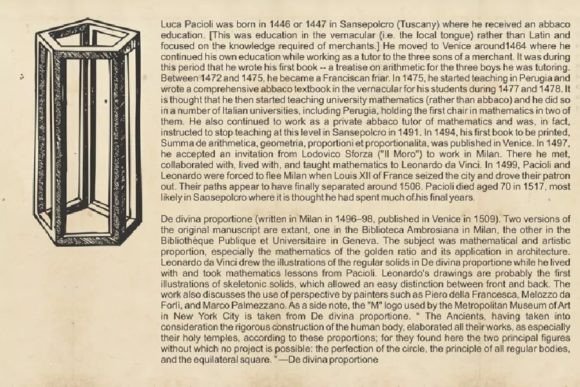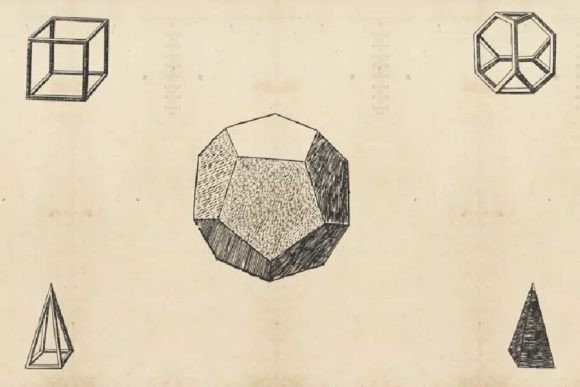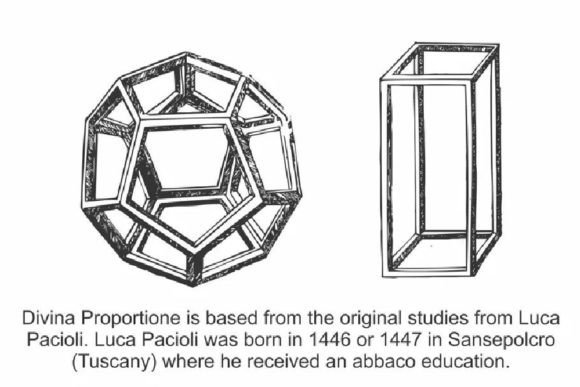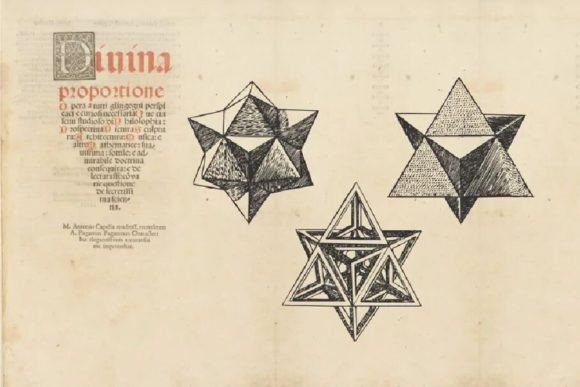
Unveiling the Beauty of Divina Proportione Font: A Mathematical and Artistic Marvel
In the realm of typography, few fonts have garnered as much attention and admiration as the Divina Proportione font. This exquisite typeface is rooted in the groundbreaking studies of Luca Pacioli, a renowned Italian mathematician and Franciscan friar. Born in 1446 or 1447 in Sansepolcro, Tuscany, Pacioli’s work would go on to inspire some of the most brilliant minds of the Renaissance, including Leonardo da Vinci.
The Genesis of Divina Proportione
Pacioli’s magnum opus, “De divina proportione,” was written in Milan between 1496 and 1498 and published in Venice in 1509. This treatise is a comprehensive exploration of mathematical and artistic proportion, with a particular focus on the golden ratio and its applications in architecture. The original manuscript, penned in Italian, is a testament to Pacioli’s meticulous research and innovative thinking.
Two versions of the original manuscript have survived to this day: one is housed in the Biblioteca Ambrosiana in Milan, while the other is preserved in the Bibliothèque Publique et Universitaire in Geneva. These priceless documents offer a glimpse into the mind of a visionary who sought to unlock the secrets of beauty and proportion.
Leonardo da Vinci and the Illustrations of De Divina Proportione
During his time with Pacioli, Leonardo da Vinci drew the breathtaking illustrations of the regular solids that appear in “De divina proportione.” These iconic drawings showcase Da Vinci’s mastery of geometry and his boundless creativity. The collaboration between Pacioli and Da Vinci represents a pivotal moment in the history of art and mathematics, as two giants of the Renaissance joined forces to create something truly extraordinary.
Leonardo da Vinci's illustrations of regular solids in De Divina Proportione
The Divina Proportione Font: A Testament to Mathematical Beauty
The Divina Proportione font is a modern interpretation of Pacioli’s work, bringing the timeless elegance of his manuscript to life. This typeface is characterized by its precise lines, harmonious proportions, and classic beauty. Designers and crafters will appreciate the font’s versatility, as it can be used in a wide range of applications, from elegant stationery to sophisticated branding.
Design and Craft Applications
The Divina Proportione font is an excellent choice for designers and crafters seeking to infuse their work with a sense of history, sophistication, and mathematical precision. Some potential applications include:
• Logos and branding: The font’s classic beauty and timeless elegance make it an excellent choice for luxury brands, artisanal products, and high-end services.
• Stationery and invitations: Add a touch of sophistication to your stationery, wedding invitations, or event announcements with the Divina Proportione font.
• Packaging and product design: The font’s mathematical precision and beauty make it an excellent choice for packaging and product design, particularly for products that require a sense of luxury and refinement.
• Typography and art: The Divina Proportione font is a great choice for typography enthusiasts and artists seeking to create stunning works of art that showcase the beauty of mathematics.
The Divina Proportione font is a true marvel, born from the intersection of mathematics, art, and history. This exquisite typeface is a testament to the power of human creativity and the enduring legacy of Luca Pacioli and Leonardo da Vinci. Whether you’re a designer, crafter, or simply someone who appreciates the beauty of mathematics, the Divina Proportione font is sure to inspire and delight.